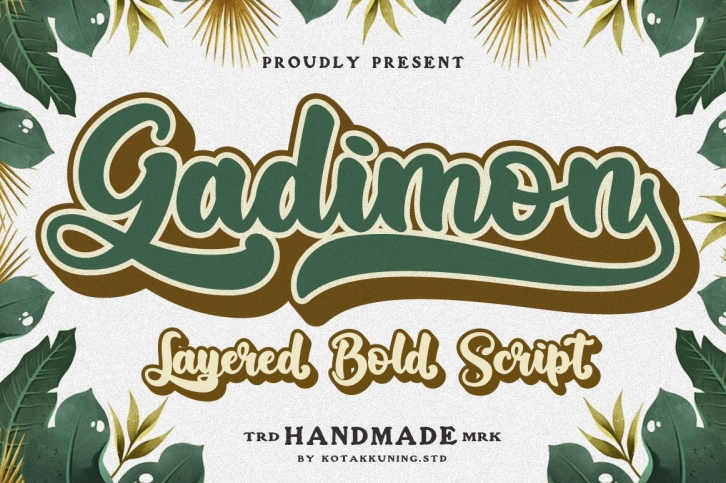
Gadimon Layered FONT Download
Gadimon Layered Font Download
Introducing Gadimon Layered Bold Script. This font is used with layers method, so it can generate interesting fonts to see, you no longer need to worry about how to make effect on the text.
This font is suitable to use as a logotype, product designs, label, watermark, social media posts, apparel, invitation, signboard, sports club, motor/car, special events or anything that need handwriting taste.
• Gadimon includes capital and lowercase letters, Alternates, and Ligatures
• Numbers + punctuation
• Foreign language support